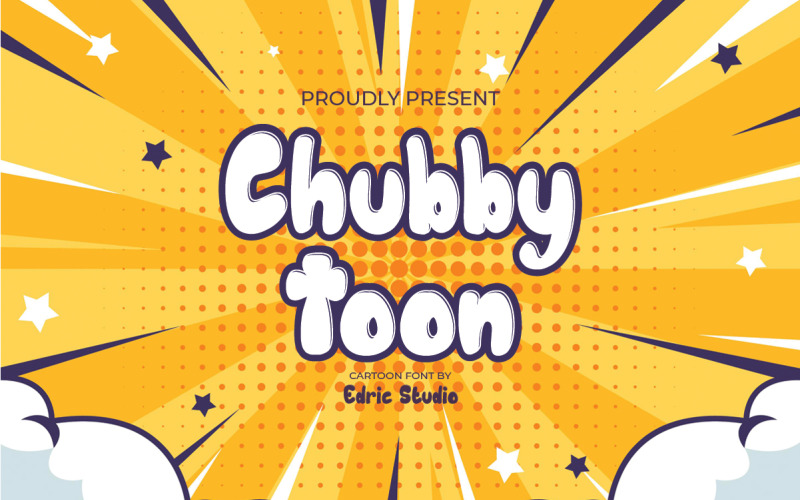
Chubby Toon Comic Cartoon Font
Chubby Toon is a fun Comic cartoon font with balloon-like shape writing style effect. We made it uniquely with unique edges and special shapes. The font will looks good for many projects : game, children books, products, merchandising, cover, banner, tags, cards etc. It will be great for fun projects, kids theme, school, science project etc